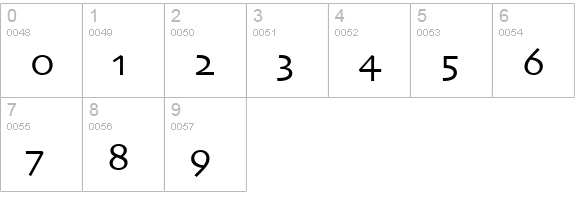
Skia Font Details
Skia font is a versatile and elegant typeface that exudes a sense of modernity and sophistication. With its clean lines and balanced proportions, this font is perfect for both digital and print applications. Whether you're designing a logo, crafting a headline, or creating a visually stunning poster, Skia font will add a touch of professionalism to your project. What sets Skia font apart is not just its exceptional design, but also its availability. Unlike many other premium fonts, Skia font is completely free to download. That's right, you can access this remarkable typeface without breaking the bank. Thanks to FontsMarket.com, you can easily add Skia font to your font library and start using it in your designs today. The beauty of Skia font lies in its versatility. It seamlessly blends into any design style, whether it be sleek and modern or classic and timeless. Its legibility is unmatched, making it ideal for body text, captions, and small print. Additionally, Skia font offers a wide range of weights and styles, allowing you to experiment with different variations to achieve the desired effect. Another noteworthy feature of Skia font is its extensive language support. It covers a vast array of languages, ensuring that your designs can reach a global audience without any barriers. This font truly embraces inclusivity and accessibility, making it a valuable asset for any designer or creative professional. So, if you're looking for a high-quality font that combines elegance, versatility, and affordability, look no further than Skia font. With its timeless appeal and freely available download at FontsMarket.com, Skia font is a must-have for designers who strive for perfection in their typography. Elevate your design projects with this exceptional typeface and experience the difference it makes in your visual compositions.